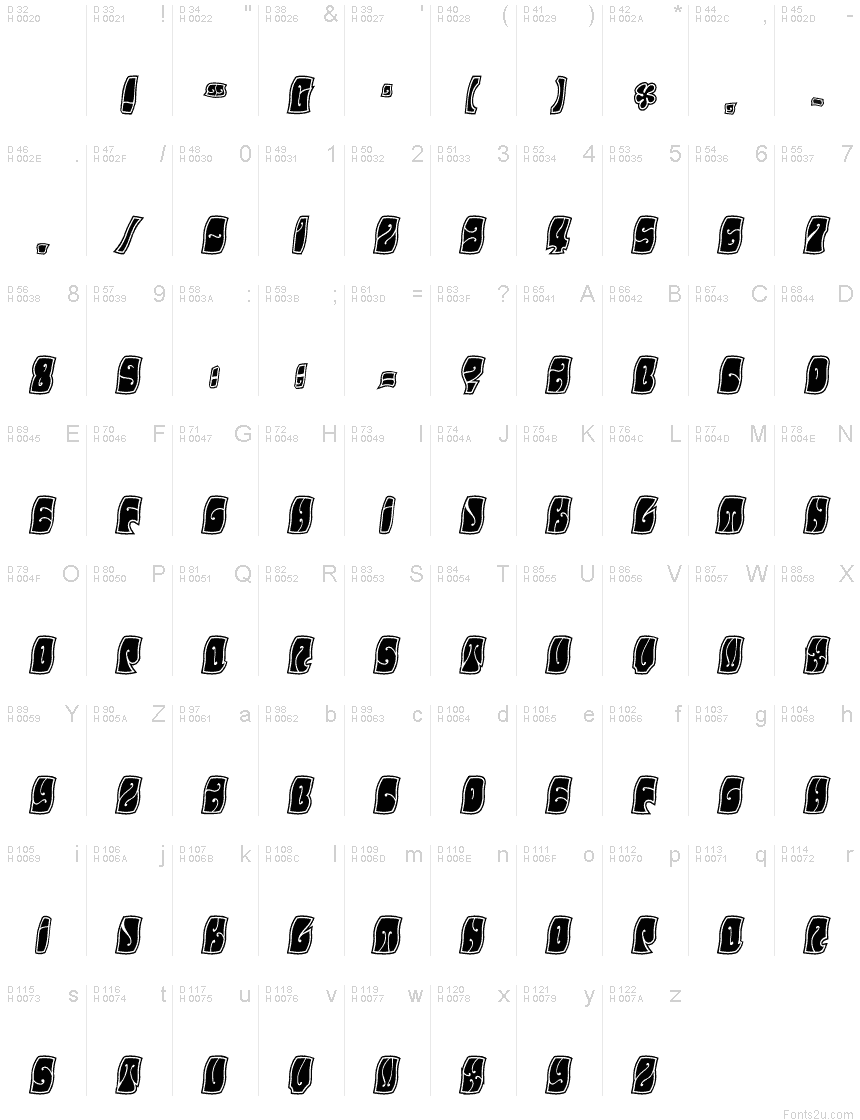
Electorate Blue
Electorate Blue font by Ray Larabie is a free groovy display typeface. Each letter sits inside a rounded, black tile, with white, vine-like strokes twisting and curling through the space, like psychedelic posters silkscreened onto ceramic tiles. The tight, uniform blocks lock together in a bold, almost hypnotic rhythm, giving the Electorate family a distinctive, stained-glass-meets-1960s-psychedelia vibe that’s impossible to miss.
Using Electorate Blue, your titles feel like they’ve been hand-painted on a swirling, retro marquee-loud, playful, and slightly mysterious. This free font shines on gig posters, album art, festival branding, zines, funky packaging, and bold social graphics where you need a single, unforgettable wordmark. Keep it big so the inner curves and swirls can breathe, and pair it with a clean geometric sans for body text to let Electorate Blue do the visual shouting.